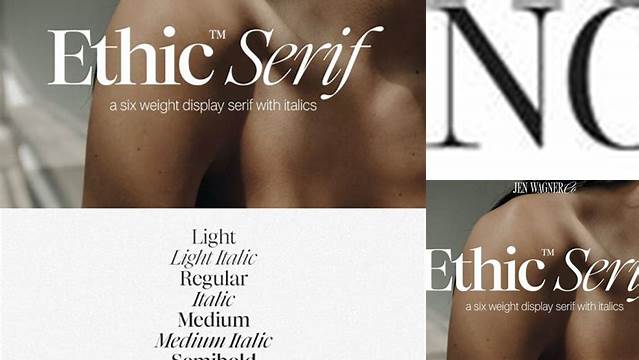
What is the Ethic Serif Font Family?
Ethic Serif is a modern serif font family characterized by its clean lines, classic proportions, and a touch of contemporary flair. Designed with readability in mind, this font family boasts a timeless aesthetic that works beautifully across various mediums. Think of it as the chameleon of fonts – it seamlessly adapts to different design needs, whether you're working on a sleek website, a sophisticated print project, or eye-catching branding materials. The Ethic Serif font family typically includes several weights and styles, allowing you to add depth and visual interest to your designs. You'll often find options ranging from light and regular to bold and even italic versions, providing the flexibility to create a cohesive and visually appealing layout. The font's serifs (the small strokes at the end of the letterforms) are generally well-defined, contributing to its overall elegance and readability. This makes Ethic Serif an excellent choice for both display and body text, ensuring your message is conveyed clearly and with a touch of sophistication. Designers often choose Ethic Serif for its balance between tradition and modernity. It's not a flashy or overly trendy font, which gives it longevity and broad appeal. This font can be an excellent choice for projects that aim to convey a sense of trust, professionalism, and refined taste. Its versatility extends to a wide range of applications, from editorial design (think magazines and books) to branding and marketing materials. If you're looking to add a touch of class and sophistication to your design projects, the Ethic Serif font family is definitely worth exploring. The design of Ethic Serif often prioritizes legibility, making it a great choice for text-heavy projects. This is crucial, as the primary goal of any font is to communicate the message clearly and effectively. The clean and uncluttered appearance of this font family makes it an ideal candidate for both digital and print media. Using Ethic Serif in your designs can make them look polished and professional, capturing the attention of the audience and conveying the message without distractions. It's a great option for anyone seeking a reliable, versatile, and elegant font to add to their creative arsenal. The beauty of Ethic Serif lies in its simplicity. You can combine it with other fonts to create something new and dynamic. With its classic serifs, the font adds a touch of sophistication to designs, making it a reliable choice for various applications. When it comes to font selection, the Ethic Serif family stands out because of its usability and visual appeal. In the world of typography, this family is a go-to choice for anyone wanting to make an impact with their design.
Features and Characteristics of Ethic Serif
Let's dive into the nitty-gritty details of what makes the Ethic Serif font family so special! The first thing you'll notice is its inherent elegance. The carefully crafted letterforms exude a sense of sophistication, making it an excellent choice for projects where a refined aesthetic is desired. The serifs are usually clean and well-defined, providing a classic feel while maintaining a modern touch. One of the standout features is its exceptional readability. Whether you're using it for headlines or body text, Ethic Serif ensures your message is easily understood. This is crucial, especially for projects where clarity is paramount. Another noteworthy characteristic is the extensive range of weights and styles often offered within the family. You might find light, regular, bold, and italic variations, which gives you incredible flexibility. This allows you to create visual hierarchy and add emphasis where needed. This versatility allows designers to experiment with different looks and feels, ensuring the perfect fit for any design. The font's design promotes legibility, even at smaller sizes. This makes it ideal for various uses, including lengthy text and complex layouts. The consistent, clean lines make the font both visually pleasing and easy to read. The balance between its classic serifs and modern sensibilities makes the Ethic Serif font family a smart choice for contemporary and timeless designs. With all of its features, it's a great addition to any designer's font collection. The font's versatility extends to a wide array of applications, making it adaptable to different mediums, from digital screens to printed materials. For those seeking a font that can convey both information and style, the Ethic Serif family is an excellent choice. The features of Ethic Serif make it a reliable and versatile font, making it a popular option for various design needs. Its elegance, readability, and wide range of styles contribute to its appeal among designers. When choosing the right font for your project, it's important to consider the unique features and characteristics that align with your creative goals. Ethic Serif provides a balance of tradition and modernity, making it a great choice for projects that seek both sophistication and clarity. With its adaptability, it provides an option to elevate your designs and captivate your audience.
How to Use Ethic Serif in Your Designs
Now that you've got the Ethic Serif font family free download, let's talk about how to use it like a pro! The versatility of this font family makes it a great choice for a variety of design projects. First, consider using it for headlines. The clean lines and elegant serifs of Ethic Serif instantly grab attention. It works well for headings in websites, brochures, posters, and more. Try experimenting with different weights (like bold or italic) to create emphasis and visual interest. Another great way to use Ethic Serif is for body text, especially in longer articles or documents. Its readability ensures that your audience can easily read and comprehend the content. Be sure to choose a comfortable font size and line spacing for maximum readability. It's a great choice for printed materials, such as books and magazines. Combine Ethic Serif with other fonts to create a balanced and eye-catching design. For instance, pair it with a clean sans-serif font for a modern and dynamic contrast. This combination can enhance readability and create visual interest. Use this font in a variety of design projects. The elegance of this font makes it a great choice for designs that require a touch of sophistication. If you're designing for a website, try using Ethic Serif for your headings and some body text. If you're working on a print project, it will provide both visual appeal and legibility. The flexibility of the Ethic Serif family will help you create designs that work for you. Another way to use the font is in your branding projects. Choose a font style that fits with the identity you want to create for your brand. It's a great choice for branding projects, because it offers elegance and sophistication. You can use this font for your logo, website, and marketing materials to create a consistent brand identity. Be sure to make use of the various styles that can be used throughout a design. This will add a visual interest and draw attention to the important text. By using the correct font and style, you can ensure that your designs are both appealing and clear. With a little creativity, you can take your designs to the next level using Ethic Serif.
Tips and Best Practices for Using Ethic Serif
Ready to elevate your designs using the Ethic Serif font family? Let's explore some tips and best practices to help you get the most out of this versatile typeface!
- Choose the Right Weight: Experiment with different font weights (light, regular, bold, etc.) to create visual hierarchy and emphasize important elements. Bold weights work well for headlines and subheadings, while lighter weights are perfect for body text. Balance is key: use heavier weights for headings and lighter weights for body text to create a visually pleasing experience. This is particularly important for longer text. When you mix different weights within your design, make sure the overall design looks visually coherent. Choosing the correct font weight will make your design more appealing and easier to read. Vary the font weights to create a visually interesting layout.
Conclusion: Embrace the Elegance of Ethic Serif
And there you have it, guys! The Ethic Serif font family is a fantastic choice for any designer looking to infuse their projects with elegance, readability, and a touch of modern flair. With its clean lines, versatile weights, and classic appeal, it's a font that will undoubtedly become a staple in your design arsenal. Remember to explore those free download options, experiment with different styles, and always consider the context of your design. Happy designing, and enjoy the beauty of Ethic Serif! If you're ready to give your projects a touch of sophistication, the Ethic Serif font family is an excellent choice. Whether you're a seasoned designer or just starting, the Ethic Serif can help to elevate your designs.